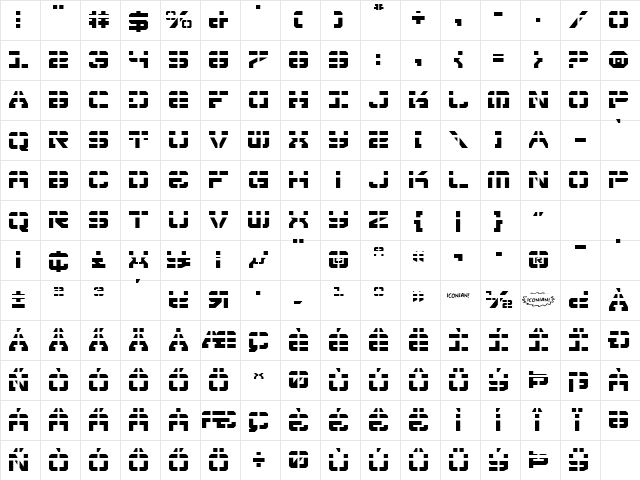
Complete Vyper Laser Regular glyph index. Displaying only characters natively supported by Vyper Laser Regular font.
Vyper Laser is a composed and adaptable typeface that performs quietly and consistently across a wide range of design contexts.